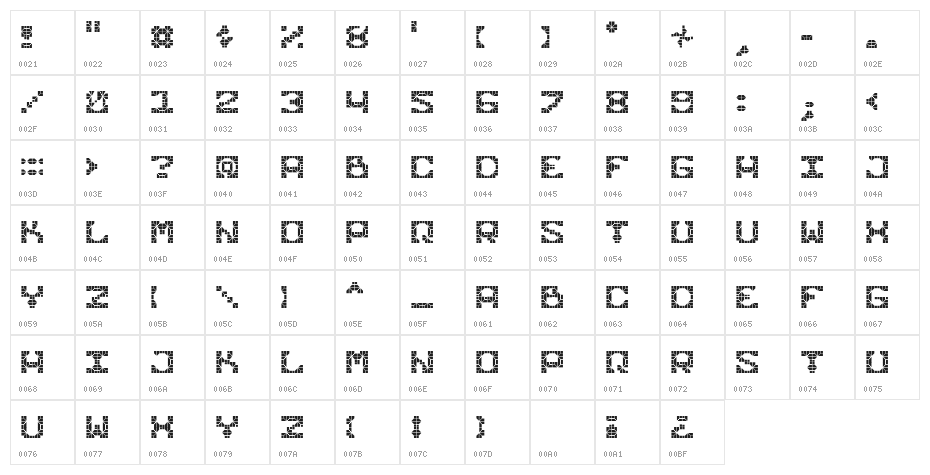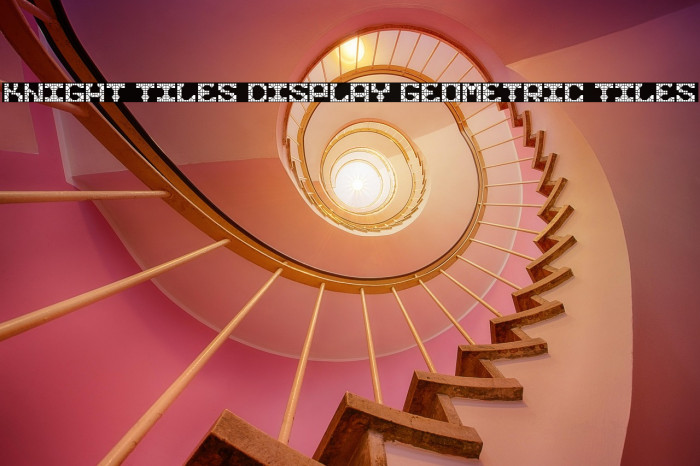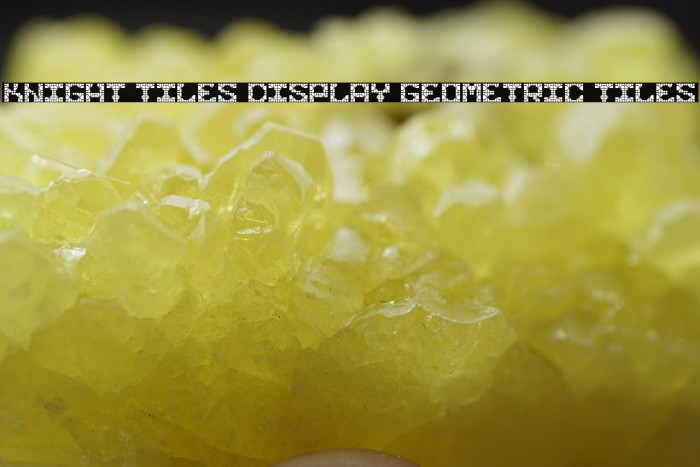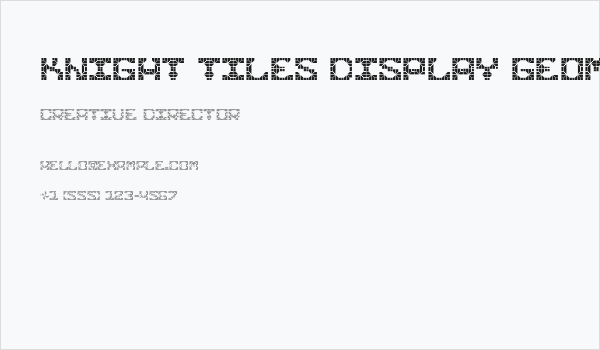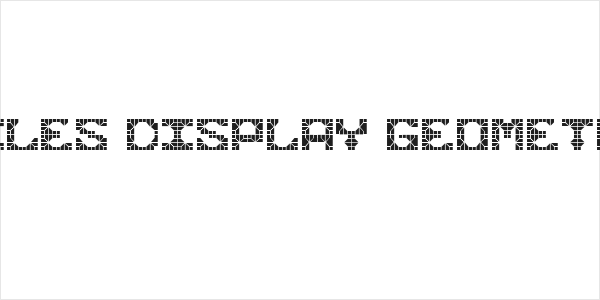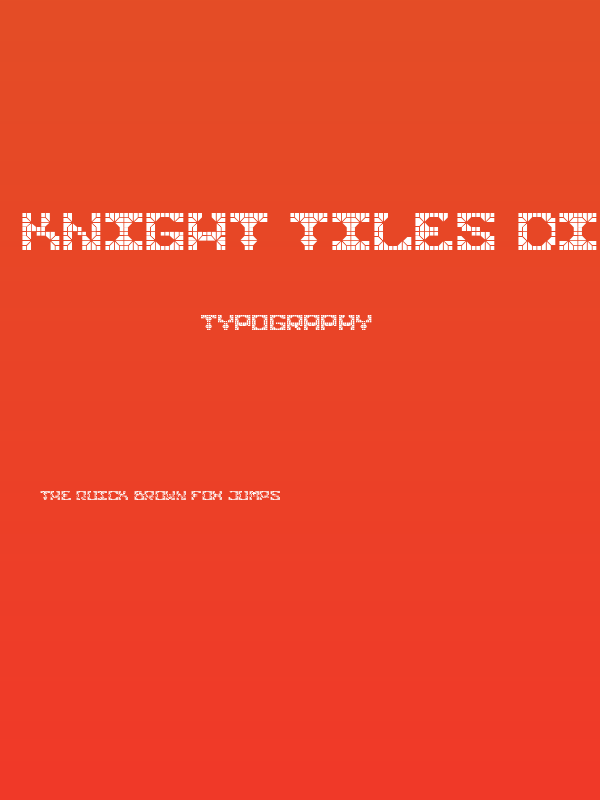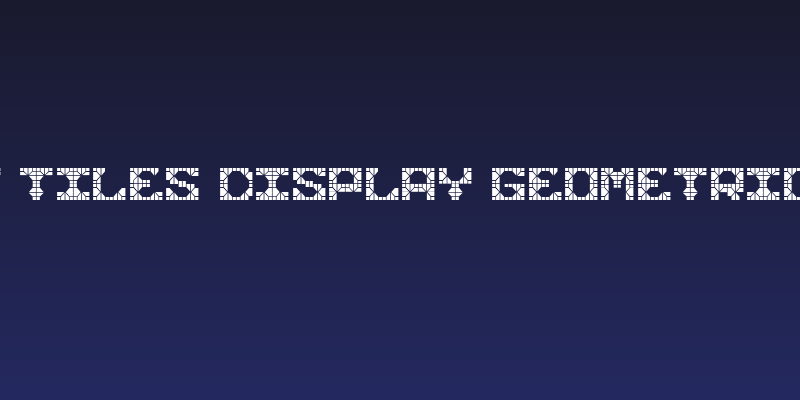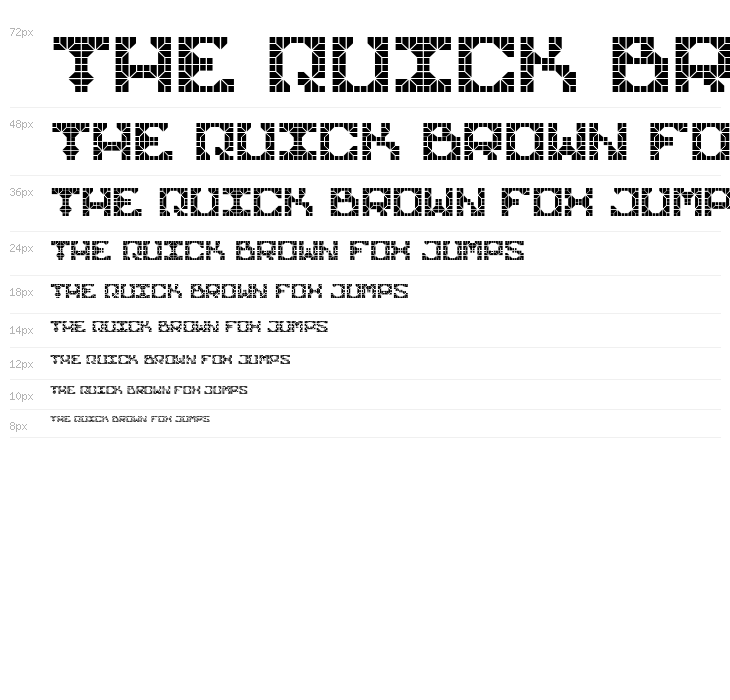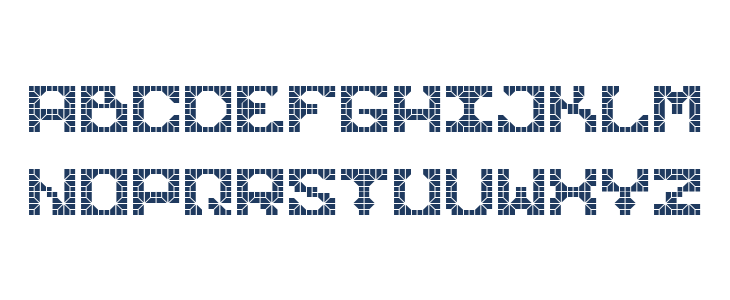
Knight Tiles Display Geometric Tiles Font
Knight Tiles Display Geometric Tiles Description
This font features a unique geometric tile design, where each character is constructed from a series of interconnected shapes, creating a mosaic-like appearance. The bold, blocky structure of the letters gives it a strong, impactful presence, making it ideal for attention-grabbing displays. The intricate pattern within each character adds a layer of complexity and visual interest, reminiscent of architectural tiling or digital pixel art. This font's distinct style is both modern and artistic, offering a fresh take on traditional typography.
| Overall Style | Modern, Artistic |
| Proposed Projects | Ideal for use in branding, posters, digital art, and any project requiring a bold, artistic statement. |